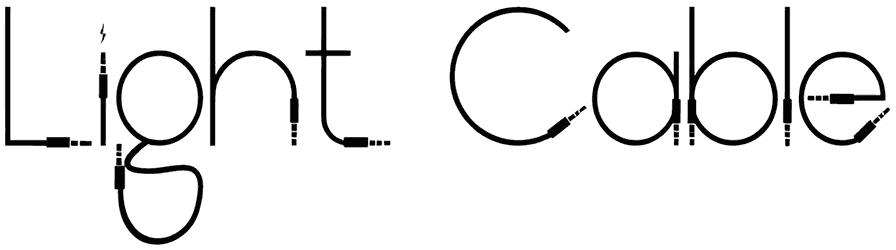
Light Cable Font
In an amusing sense, this fancy, sans serif font can be utilized for any creative project. With a combination of lowercase and uppercase letters in two distinct styles, the Light Cable font is an ideal alternative for many logos, branding, and more.
It gives your designs enormous prominence and fuses them with a strong and bold presence, despite the lack of numeric. Get in on the fun and see what happens; if you need more details, consult RB.